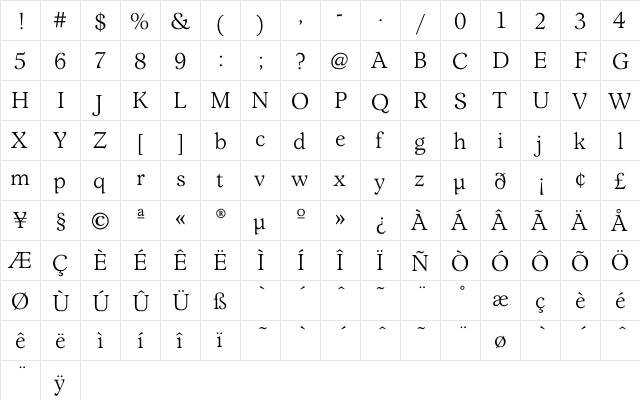
LombaBook Regular
Design Context for LombaBook Typeface
LombaBook offers clean, dependable letterforms without strong stylistic allegiance, making it a practical choice for designers who need flexibility.
Pro Tip: Use LombaBook in both headline and body roles to test its range before committing to a single application.